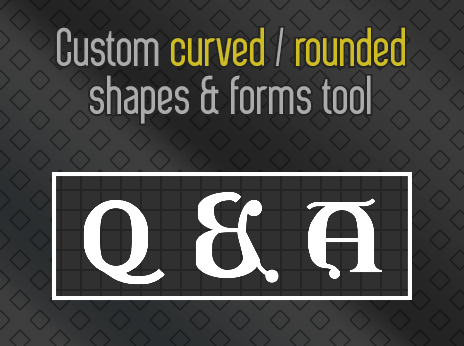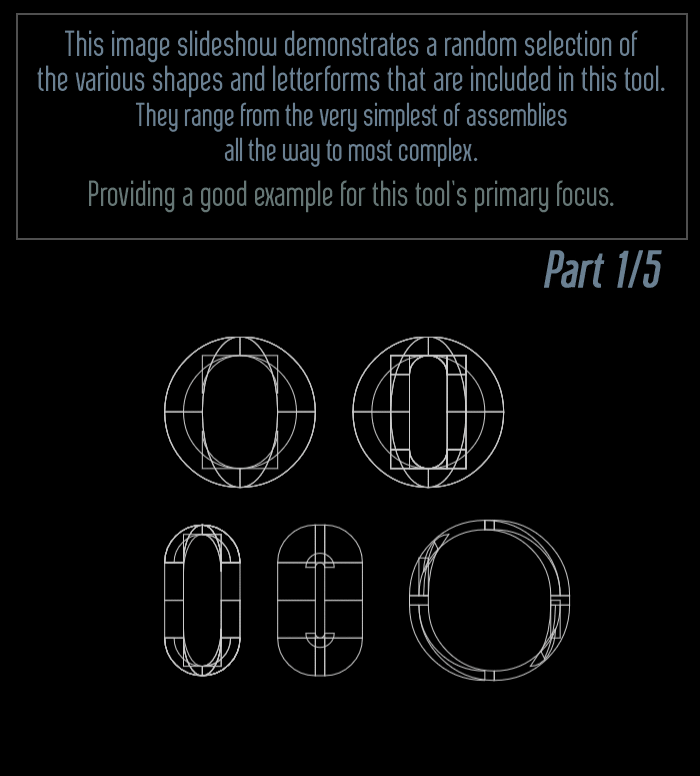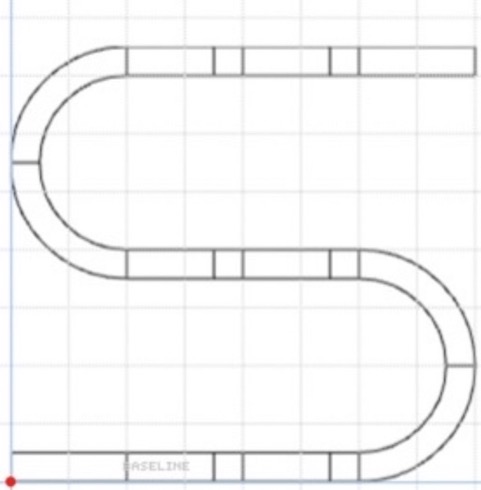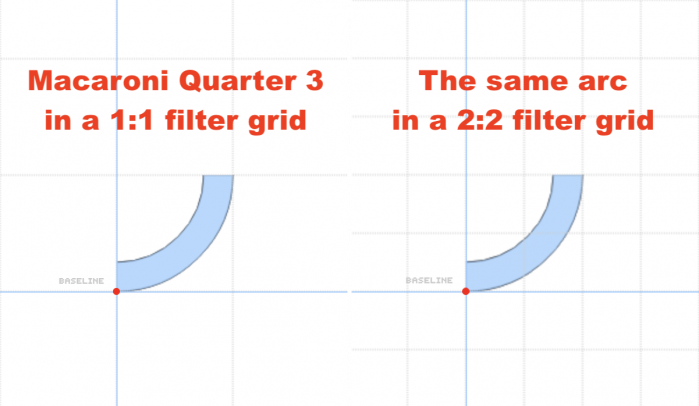
This is a collection with parts and bits for small grid designs, (5x5 max) Each related to the assembly of smooth and (near) Bézier-like curved shapes and round letterforms.
As some of you might very well know, one of FontStruct's holy grail is custom circular and curved forms. I'm talking about those not simply build with off-the-shelf bricks from the standard brick pallet FontStruct is providing.
Making these can be a very difficult process. Since the bricks in the default pallet are a far cry from what is truly possible with some clever use of FontStruct's editor features. Although obviously there remain serious limitations when it comes down to making different curves and round forms, there still is a lot room available to work in.
Most of the seasoned users know and utilize this very well, but, as with each of us, it took time and dedication in order to learn the tricks of the trade!
With a little knowledge, clever thinking and a healthy dose of outside the box thinking one can still get a lot out of FontStruct.
This font is meant to serve as a helping hand and inspirational / educative tool. Providing some insight into making numerous curving and rounded forms, various transitions, achieving different weight contrasts, and how all the various building blocks were aligned in order to make the various parts.
Most important features used for this process are:
Brick Size filter: Must be changed to a 2×2 value in order to use the elements in this font.
All functions found in the "Modify" menu: Flip rotation and nudge are used to make alignments and to fill up the gaps.
Make composite: (also found in the Modify menu) This function will mainly be used to do two tasks, resize, modify/distort brick shape,
placement and orientation of bricks within the brick grid square for the required given composite.
The font itself contains a collection of different premade elements divided into 3 main groups that I will list bellow. And can be found in the uppercase, lowercase and numerals sections.
[Uppercase]  Various pre-assembled variations of the letter O, to demonstrate different variations for a round letterform. These were sub-divided and grouped according to their relative height!
[Lowercase] "Copy & Paste"-ready isolated parts 'n bits (curve segments, terminals) aimed at re-constructing and use in your own projects
[Numerals] Various random examples of letters that have curved/round features implemented in some way.
A fonts height probably is the most dictating parameter in type design in terms of behavior and appearance. Therefor, with the collection of pre-build vatiations of the letter "O", I choose its relative height to further sub-divide them in, rather than weight, since these are already completed letterforms. This makes up for the easiest access to a "drag/drop" adaptation into one's own project and build a full font based upon it, mainly for those that come with only limited experience.
Re-use any of the provided elements, copy/paste the letter examples into your own fonts, deconstruct and re-use the various parts. Or simply just take a peek under the hood to see how they were build, This can be done via the "Menu>View>'Outline' " function.
More additional curve variations and different related other elements will be added soon. I have to select them from my various random works and this takes some time. Please stick with me on this one.
The intent is to try keeping this a ongoing project, so hopefully many more updates will follow and eventually turn this into a "all-in-one" tool for small grid designs. So far I also have plans for including a collection with different serif style, but this is something for a future update as well!
For now, curvatures it is!
Note that, all content and forms in this font were created by myself and were gather from the various projects I have made, most came from published works, but some were taken from private material as well. We all here work with the same tool + limited brick set, so I am pretty sure certain elements in here were done exactly the same way by other users. Please don't accuse me of using others or your material without approval, this is just a case of unfortunate coincidence.
[Usage]
The elements are best used by way of copying them from this into your personal projects, and work with it from there! This because the "My Bricks" pallet in this font is messy, probably very uncomfortable to work with as is. Copy & pasting them into your own font re-arranges the selected brick set for that segment into your own font's "My Bricks" pallet, making it much easier to get sense of its individual bricks.